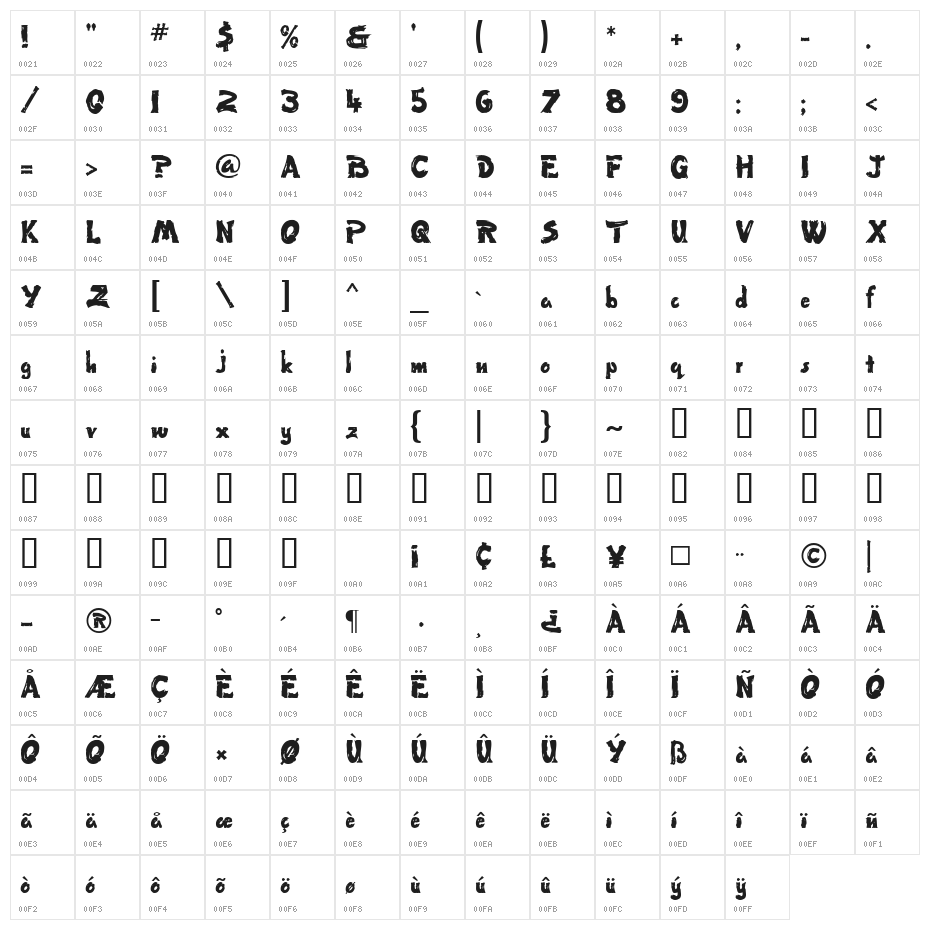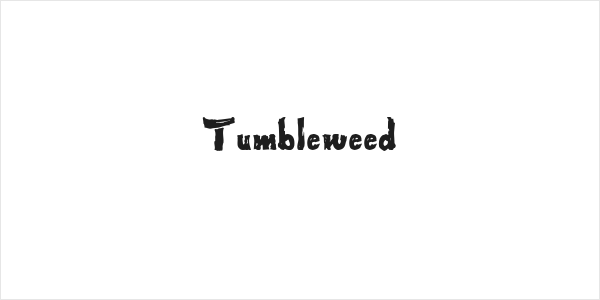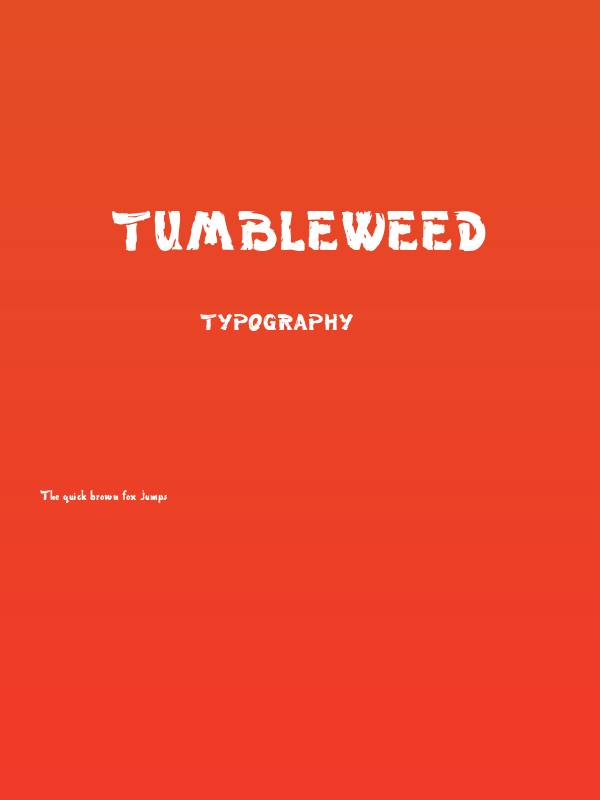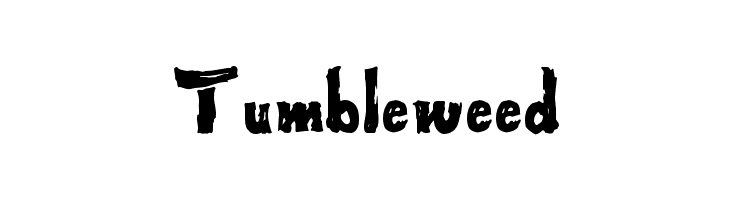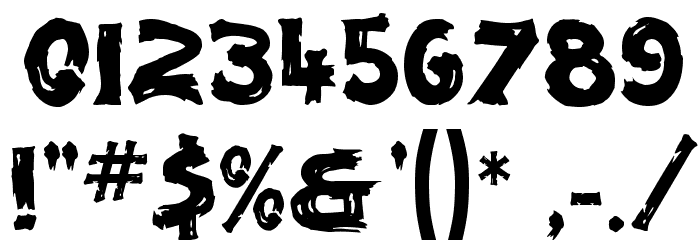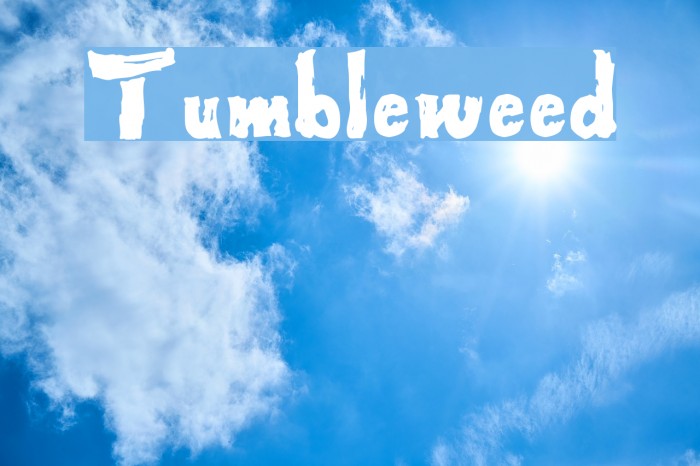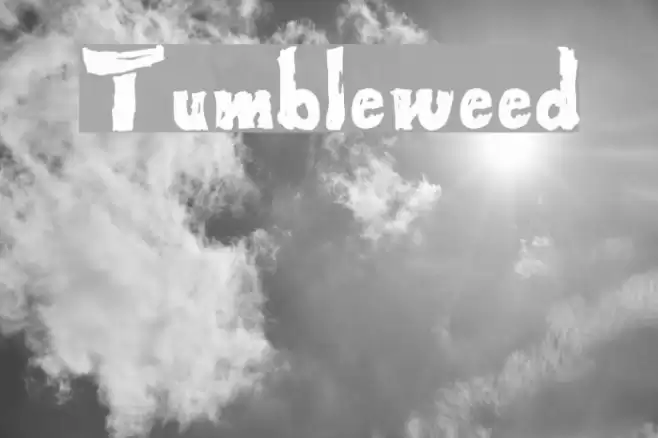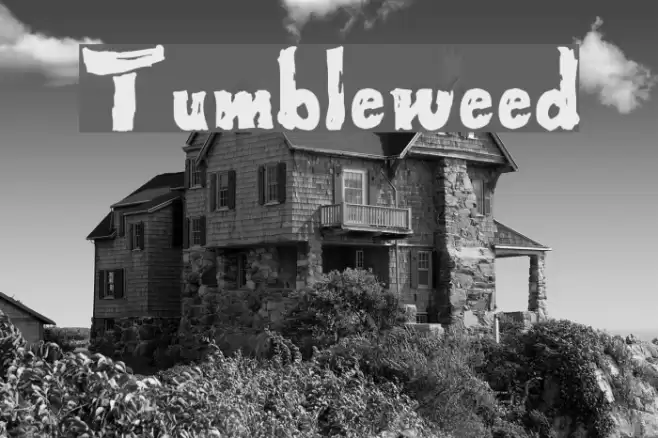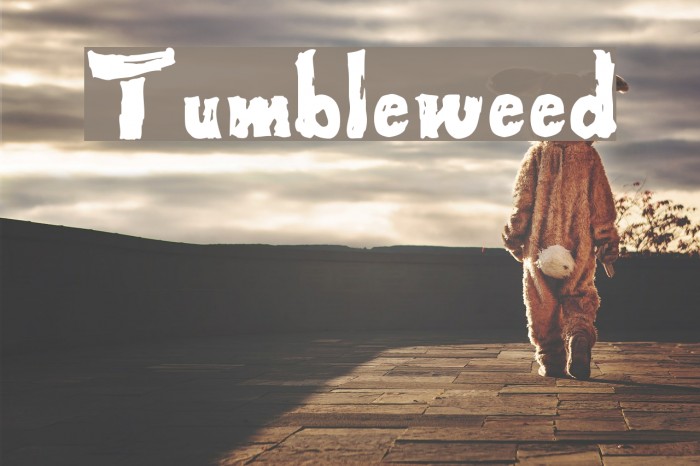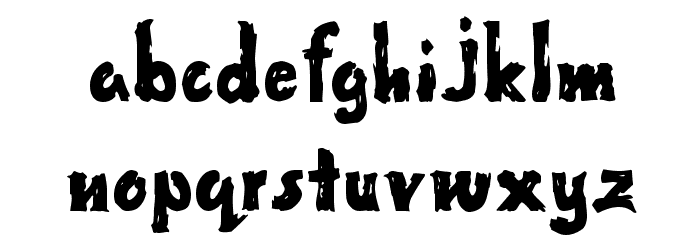
Tumbleweed Font
Tumbleweed Description
This font features a rugged, distressed style that evokes a sense of the wild west or a rustic, vintage aesthetic. The characters are bold and uneven, with a hand-painted appearance that adds a unique, artistic flair. The uppercase and lowercase letters maintain a consistent style, with jagged edges and varying stroke widths that give the font a dynamic and energetic feel. Numbers and special characters follow the same design principles, ensuring a cohesive look across all text elements. This font's distinctive style makes it ideal for projects that require a touch of personality and creativity.
| Overall Style | Vintage |
| Proposed Projects | Ideal for posters, branding, and designs that require a rustic or vintage touch. |